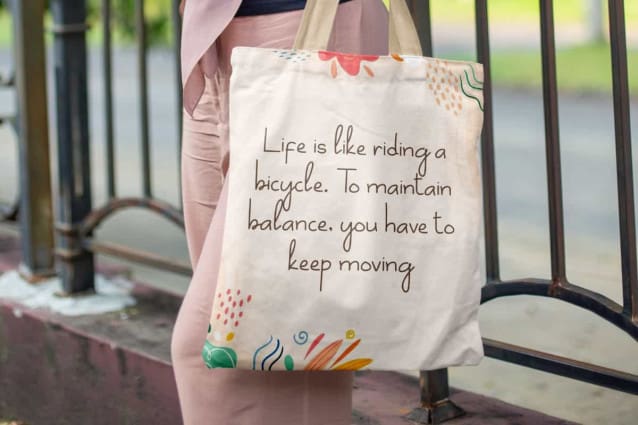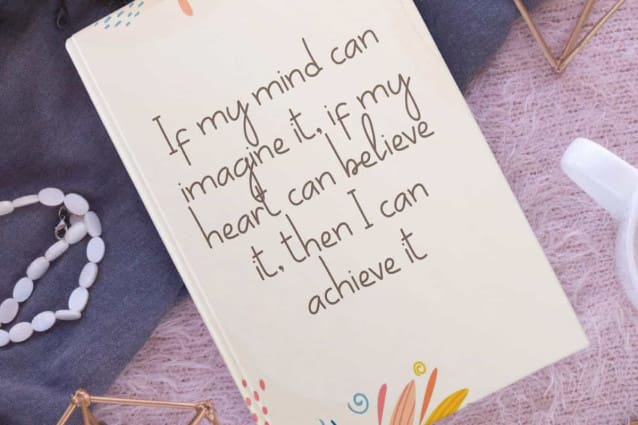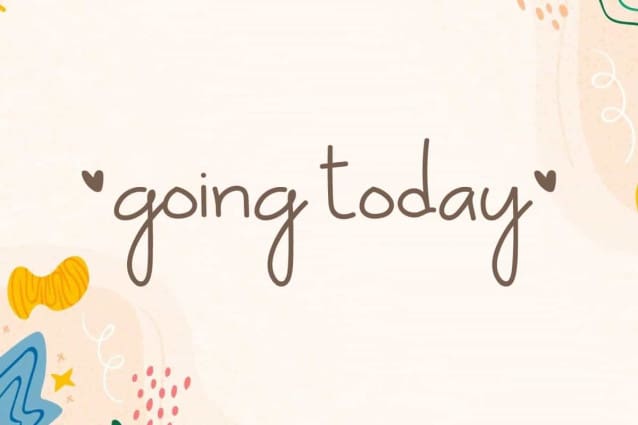
Going Today Font
Going Today Font is a simple handwriting script font by VinType Studio. This handwritten font will make your design look more cute and beautiful without limits. This font will be suitable for many industries, such as advertisement, author and writer, beauty product, event or restaurant, florist, handicraft, homeware, jewelry and accessories, printing, publishing, and more!
Going Today Font includes full set of Uppercase and Lowercase Basic Characters, Numerals, Punctuation, and Symbol. This cute font will make you want to use it in various types of designs, such as branding, brochure, business card, cover, custom designs, invitation, label, packaging design, poster, quotes, screen printing, website, etc.